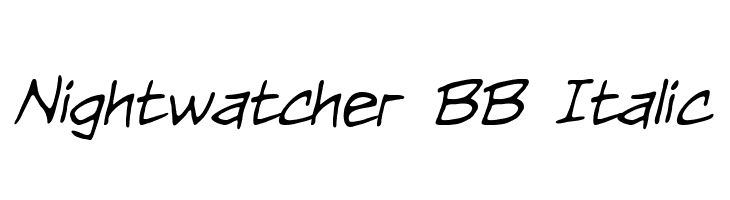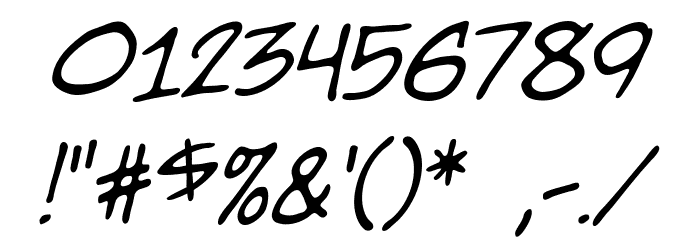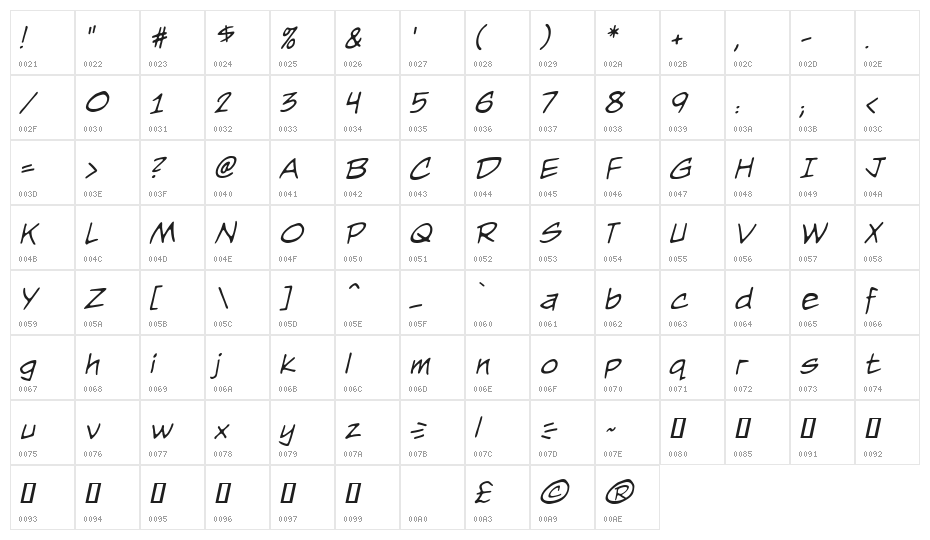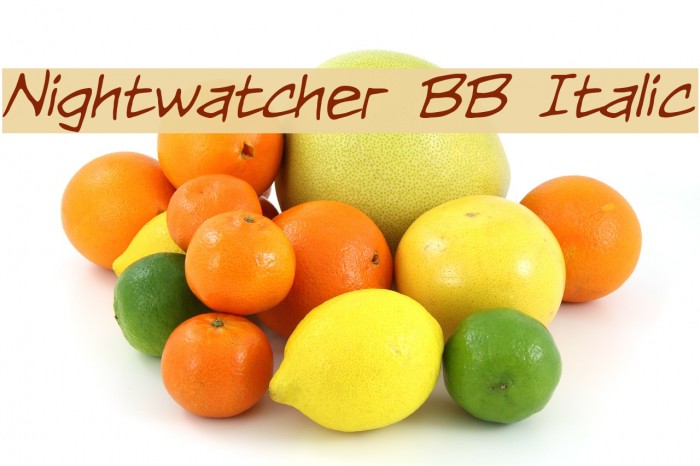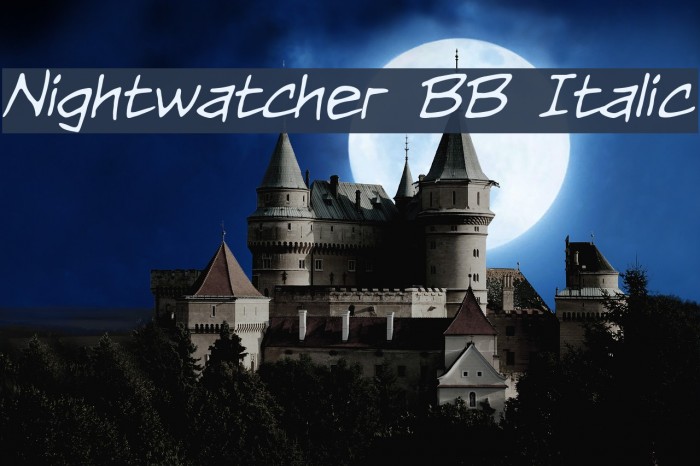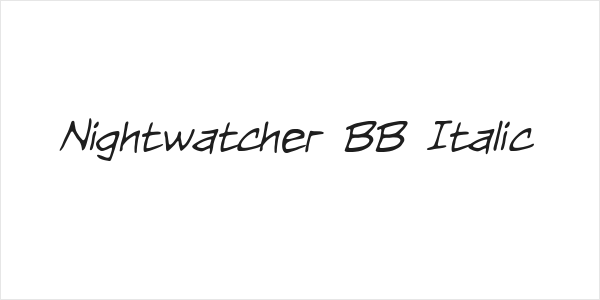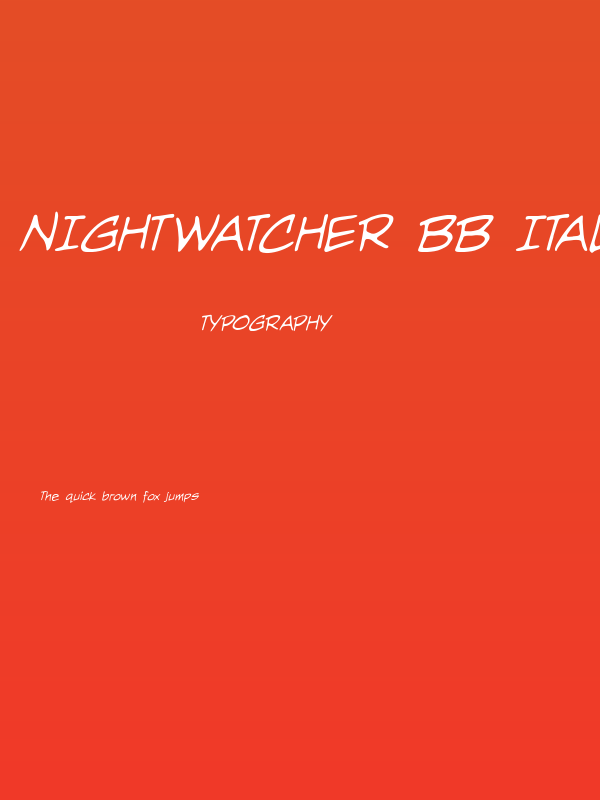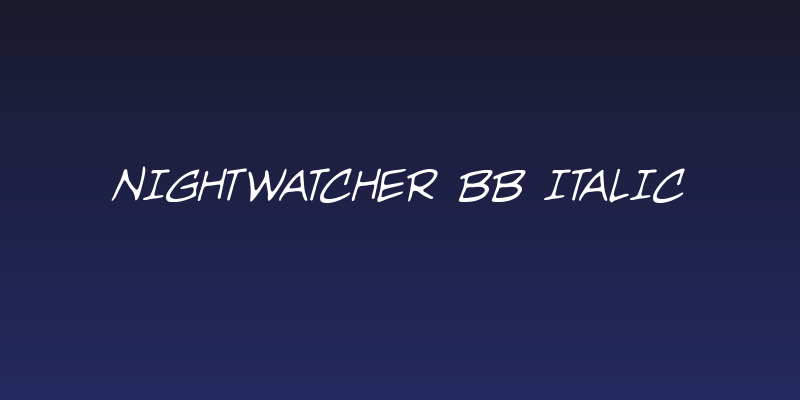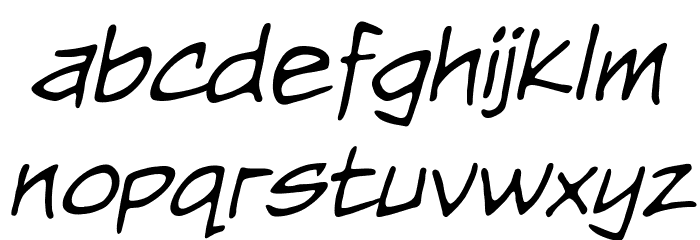
Nightwatcher BB Italic Font
Nightwatcher BB Italic Description
This font features a dynamic and energetic script style, characterized by its fluid, handwritten appearance. The letters are slightly slanted, enhancing its italic nature, and exhibit a consistent stroke width that maintains readability while adding a touch of elegance. The uppercase and lowercase letters are well-proportioned, with a natural flow that mimics authentic handwriting. The numerals and special characters are crafted with the same attention to detail, ensuring a cohesive look across all glyphs. This font's playful yet sophisticated style makes it suitable for a variety of creative projects.